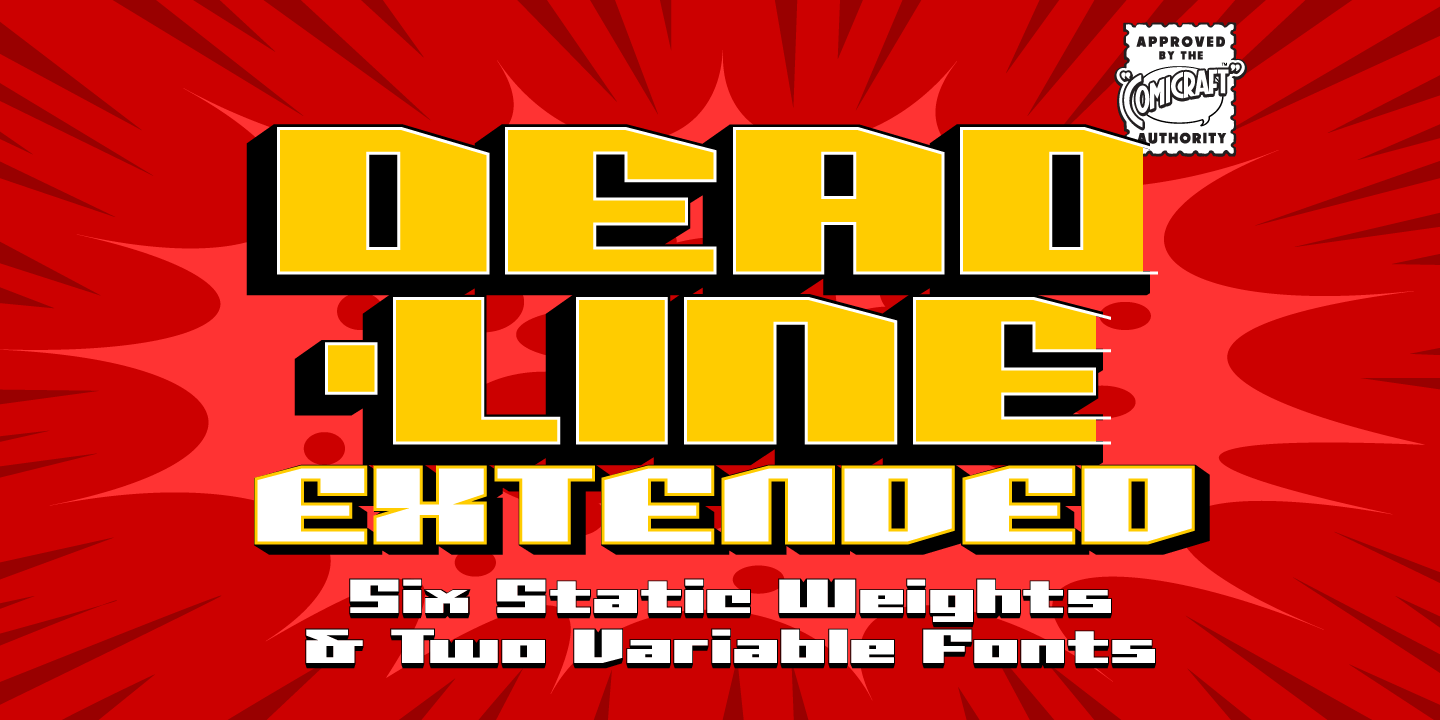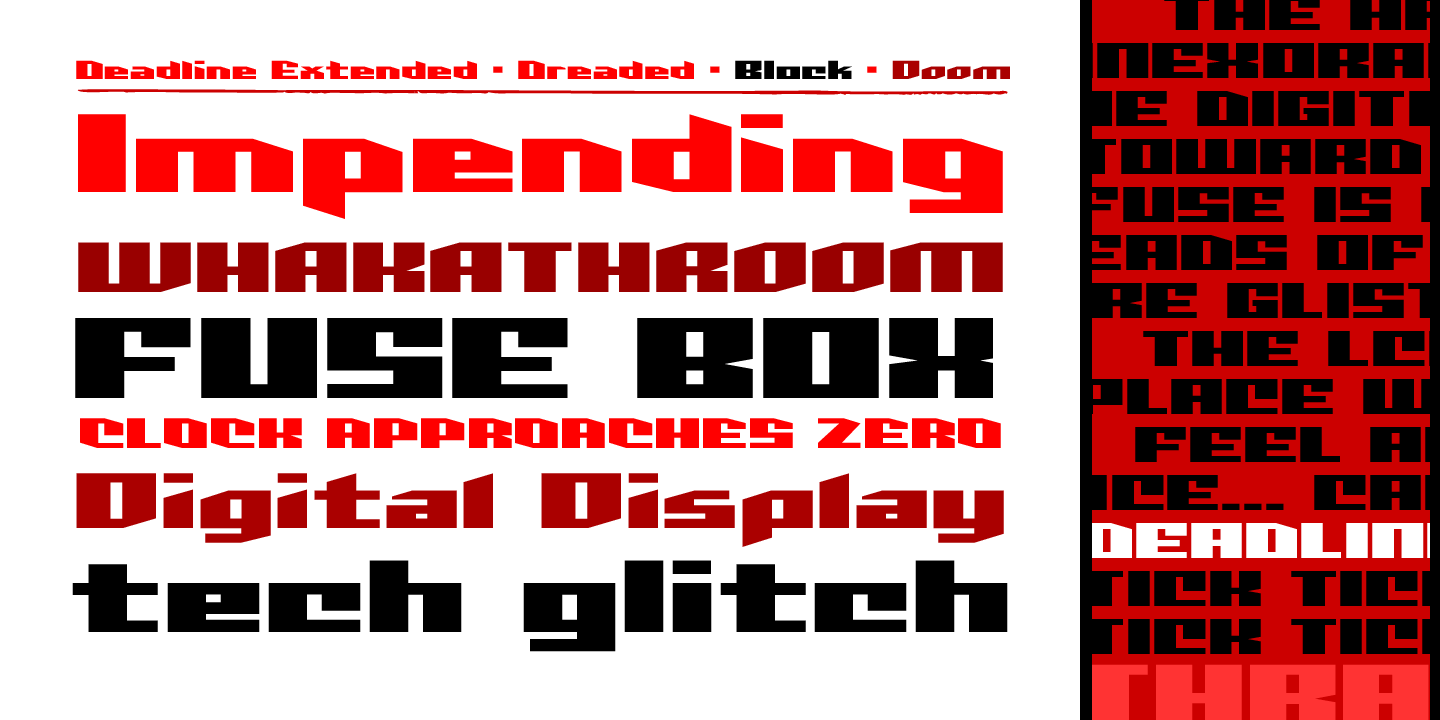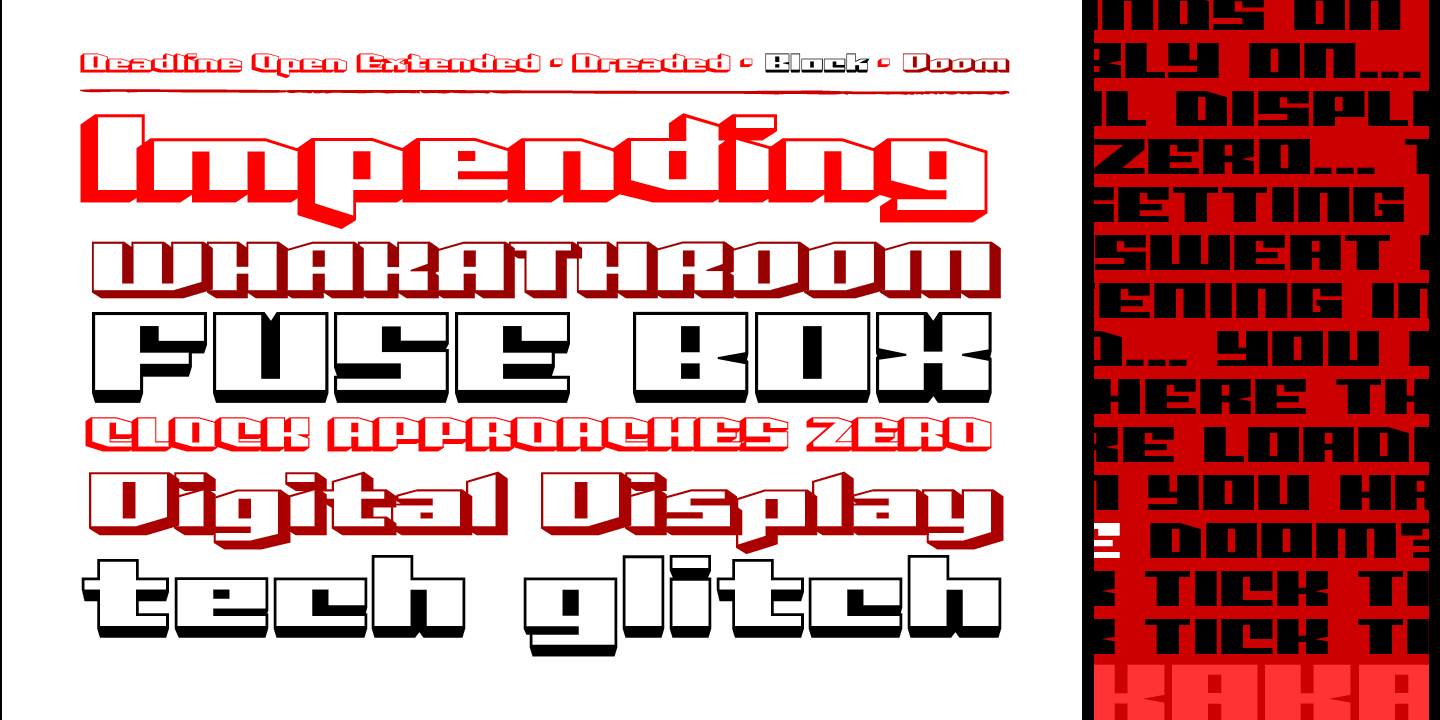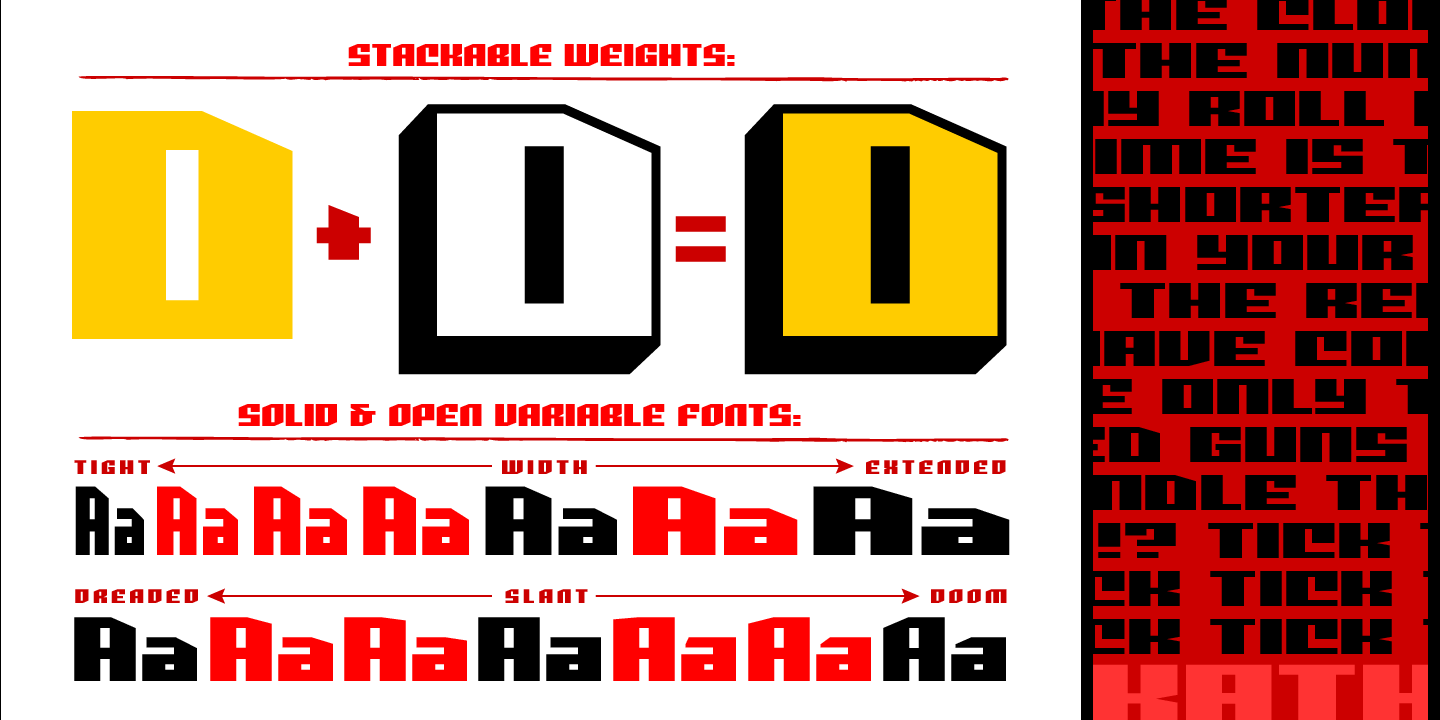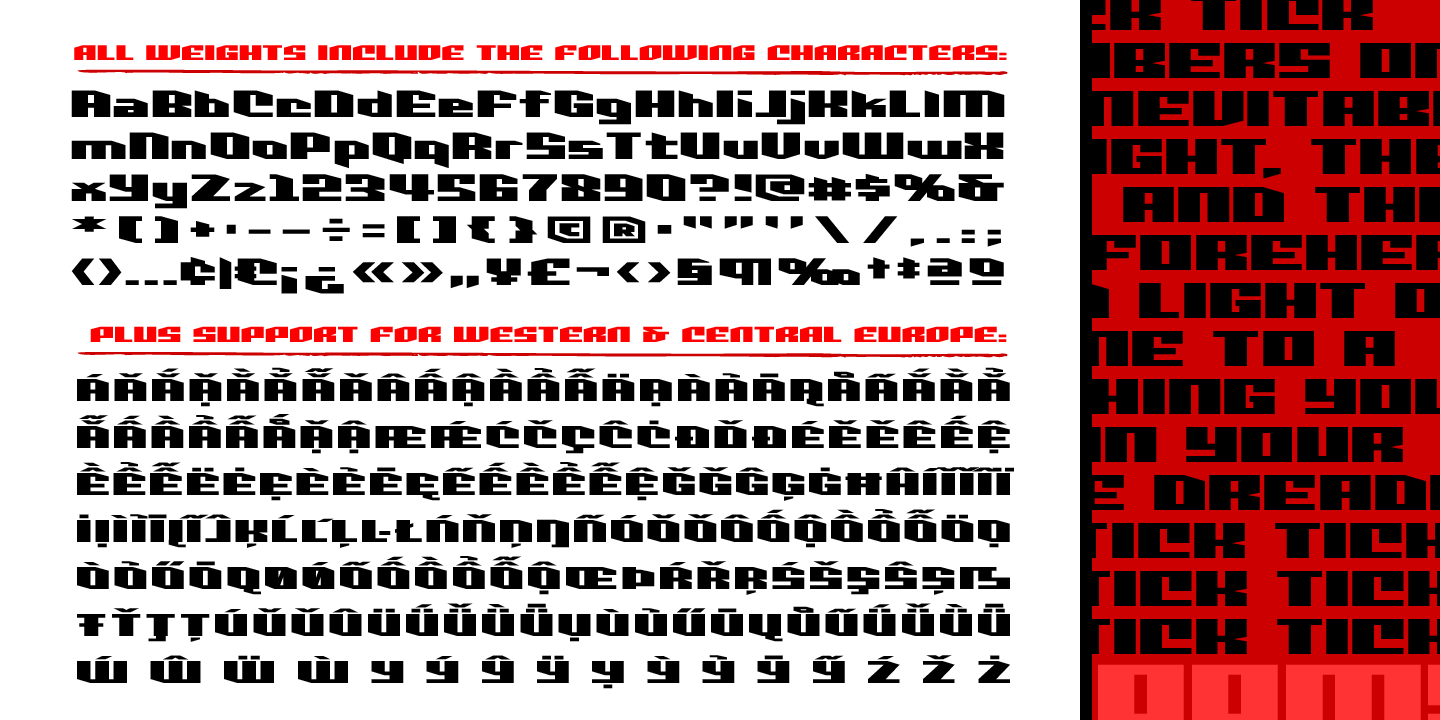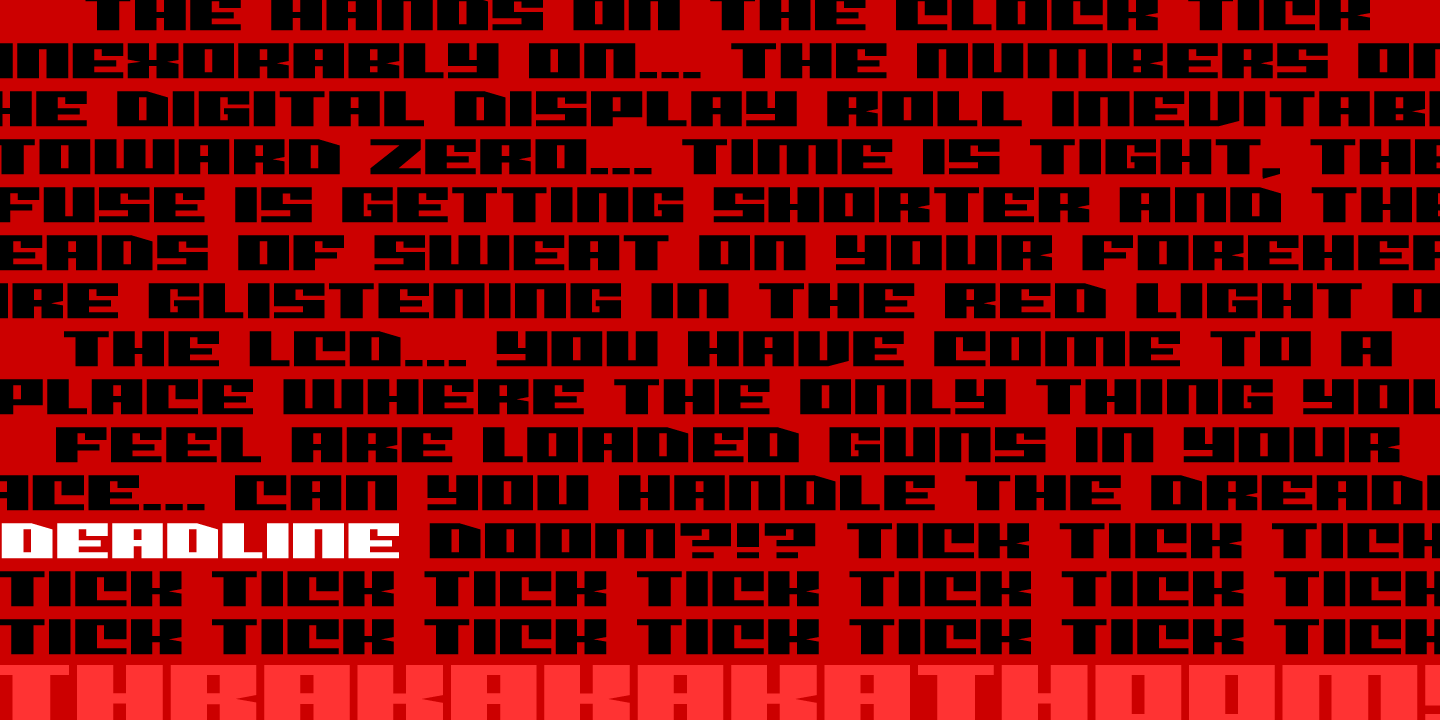
Deadline Extended
Buy NowDeadline Extended is a six-style display sans with a forceful, futuristic look. Its angular, blocky construction and extended proportions give it a wide, commanding stance, while the mix of solid and open styles adds extra range for bold, graphic typography.
With styles like Block, Doom, and Dreaded in both filled and open versions, this family is well suited to posters, logos, packaging, signage, apparel, and other headline work that needs a strong industrial or tech-leaning voice. The overall feel is modern, heavy, and high-impact, with an uppercase-forward personality that reads fast and lands hard.
Created by Comicraft Fonts, this family offers a useful set of six related looks for designers who want display type with a tough comic-inspired edge and plenty of visual presence.